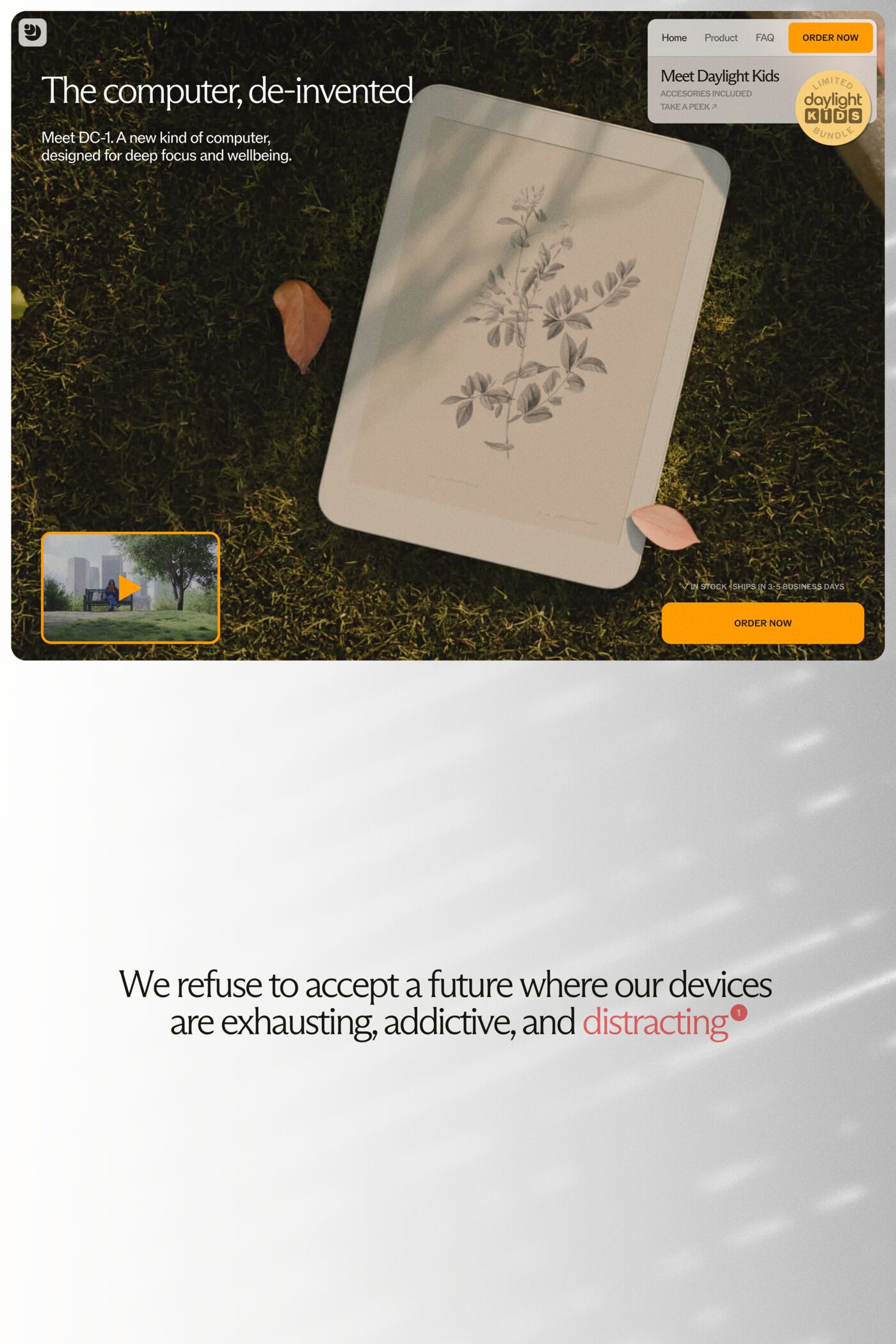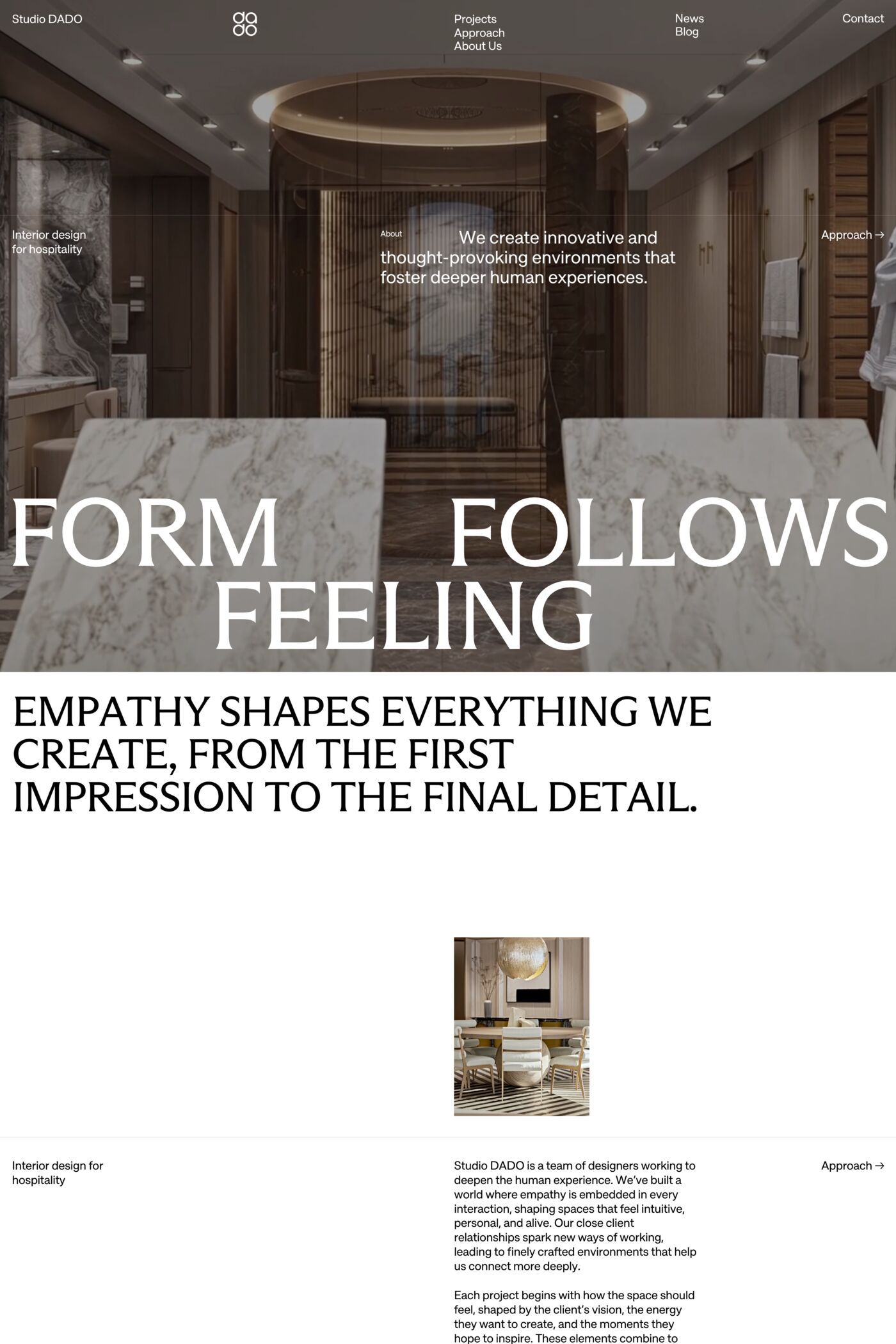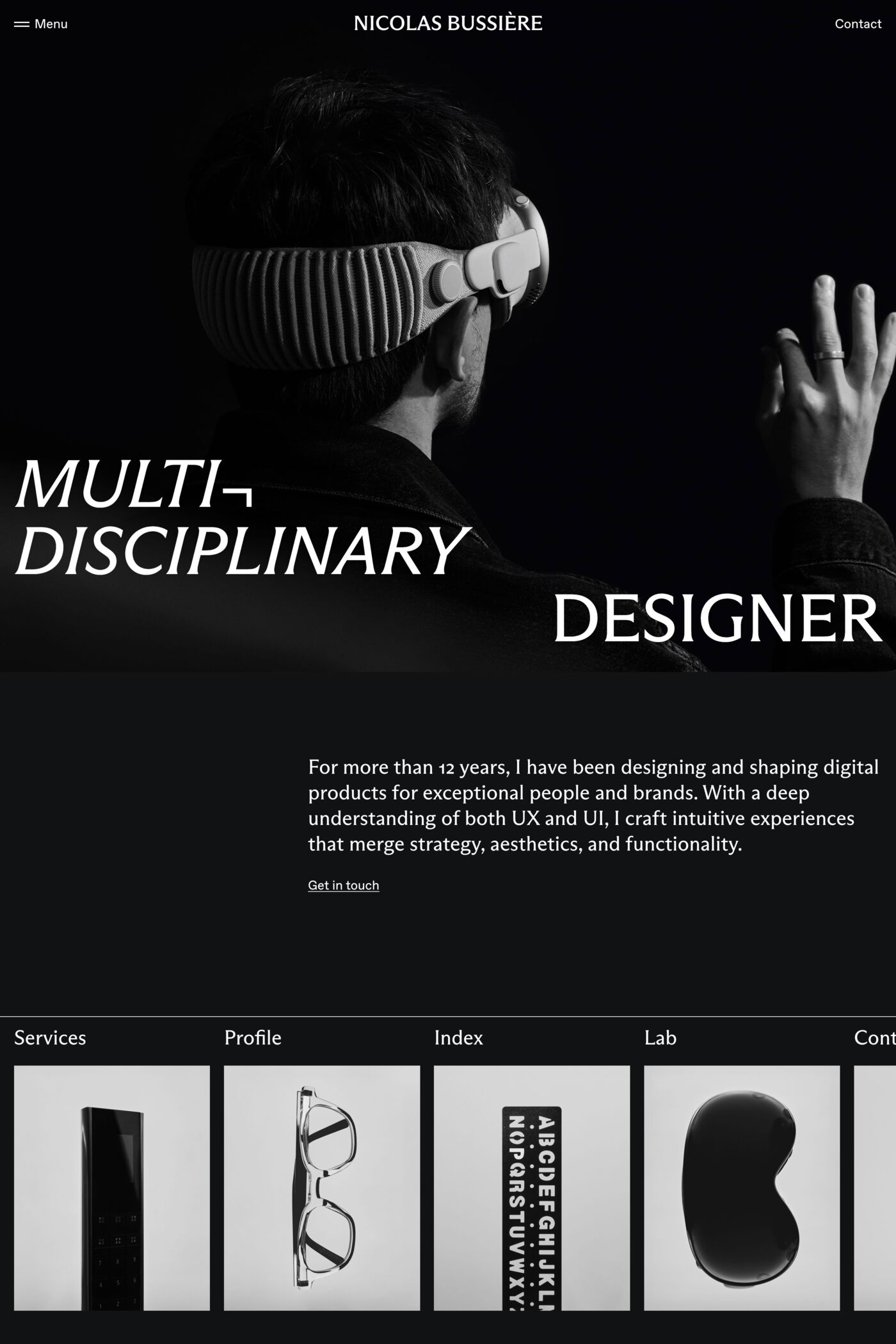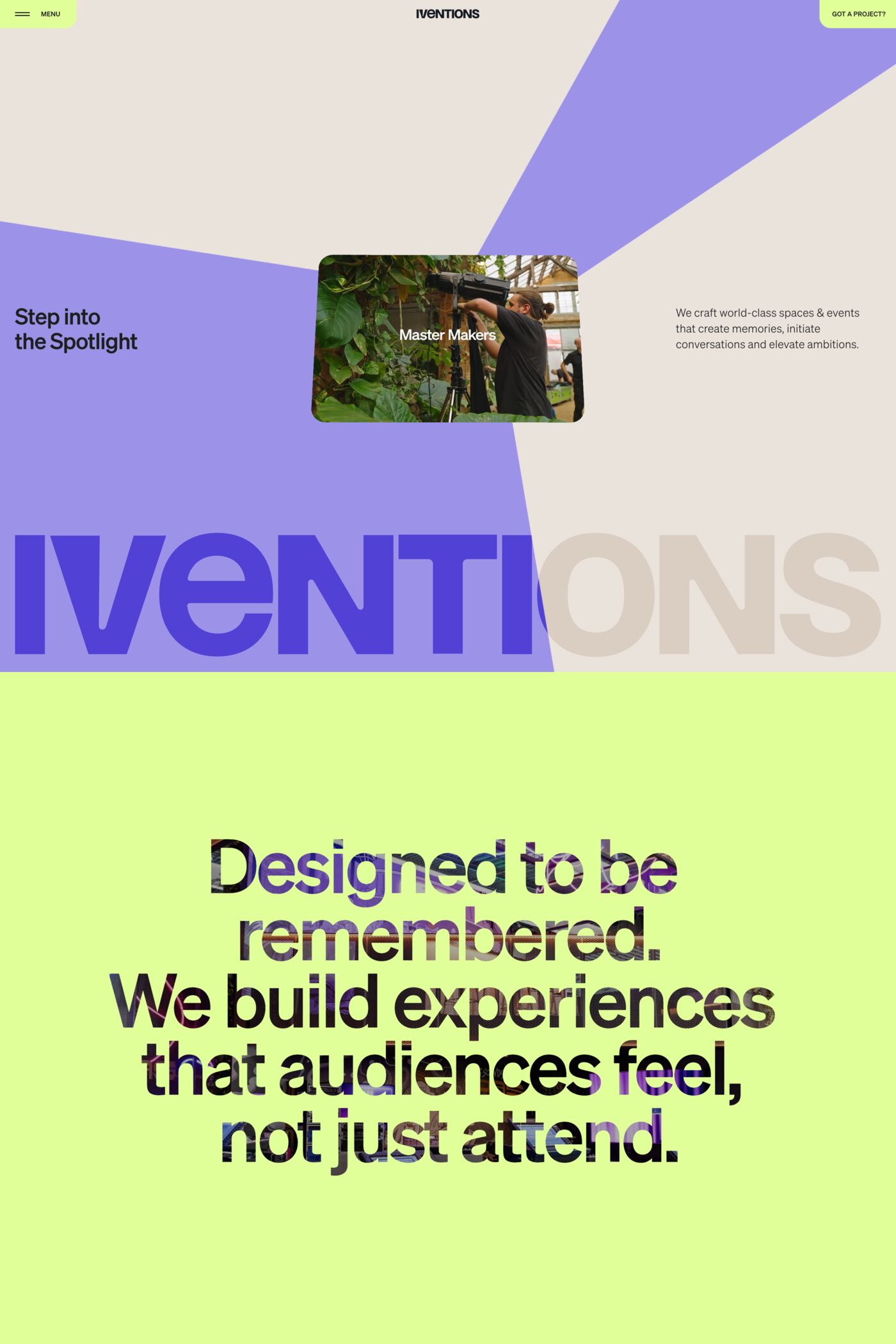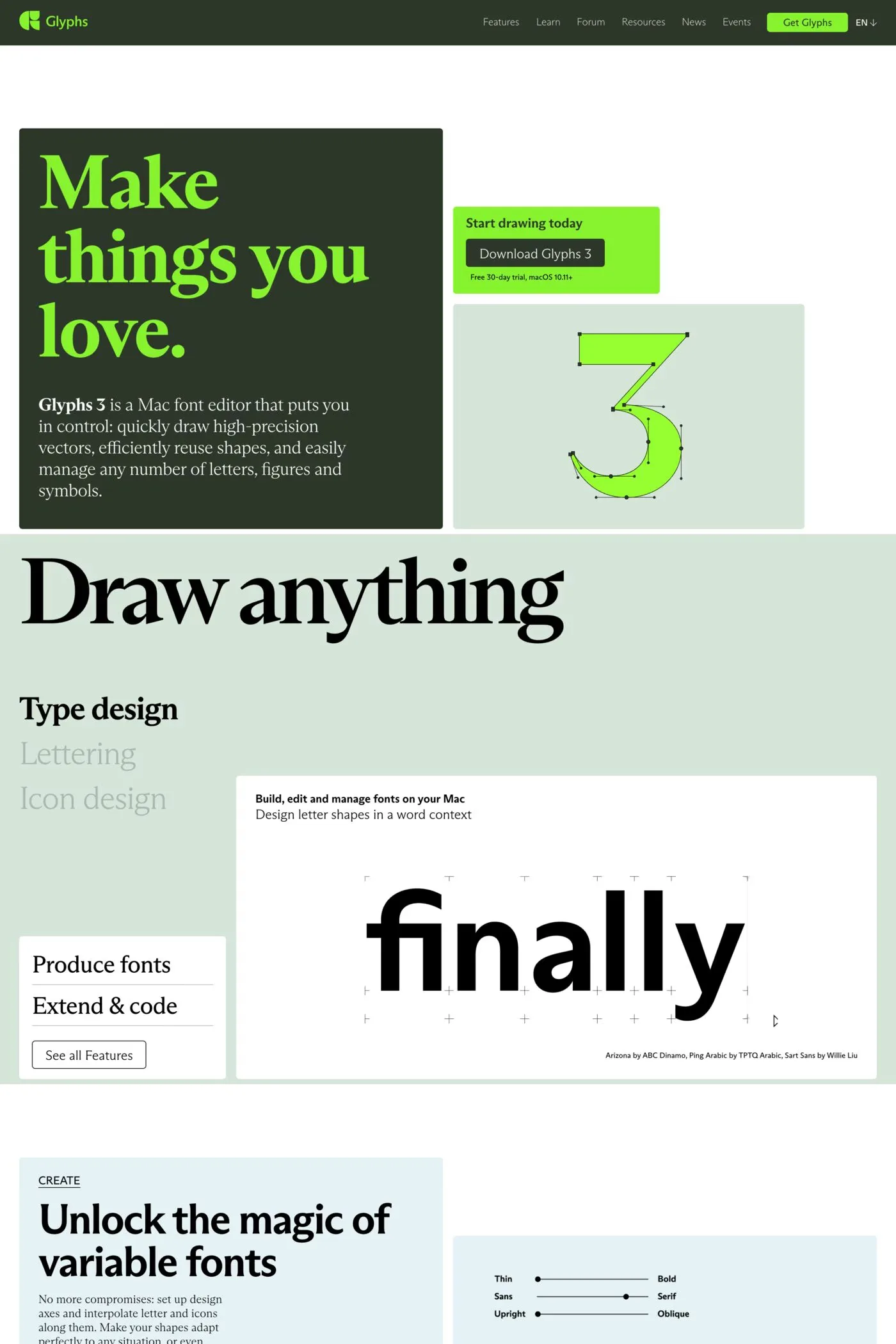
Arizona is a serif typeface from Dinamo.
ABC Arizona is the first ever sans to serif “superfamily” that packages its five looks — Serif, Text, Mix, Flare, and Sans — into one single font file. In other words, it’s a slim, all-genres-in-one font happy-meal. Versatile and adjustable for any context.
A1 features 12 websites using Arizona, including Mintlify, Jules Andrieu, and Glyphs. They lean towards Photography, Serif, and Typographic design styles, and they’re most often built with Next.js, Wordpress, and Webflow.